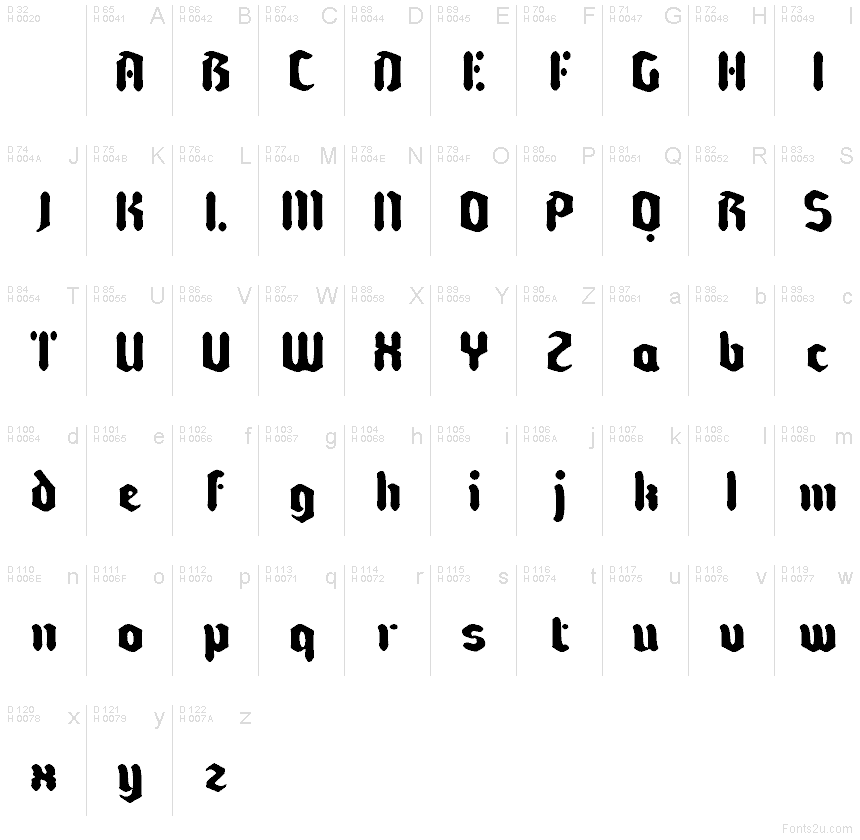
CSVascoDrawn-Regular Demo
CS Vasco Drawn font is a medieval bold typeface from Craft Supply Co. With clear references to traditional Gothic characters, the free font feels ornate and historical. Each letter in it shows immaculate details that make them distinctively recognizable with a strong presence.